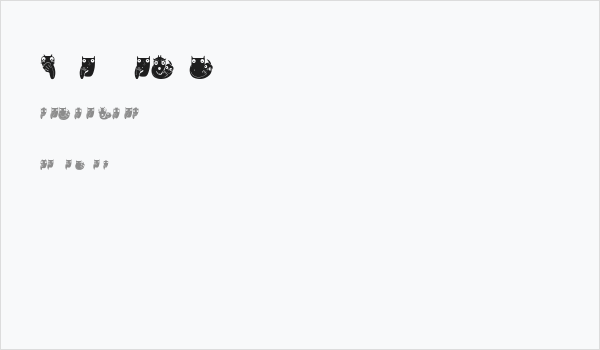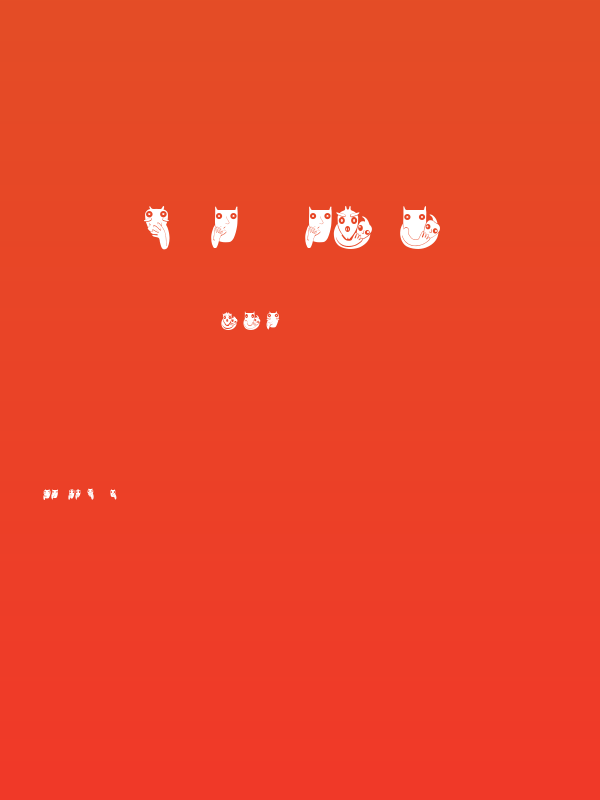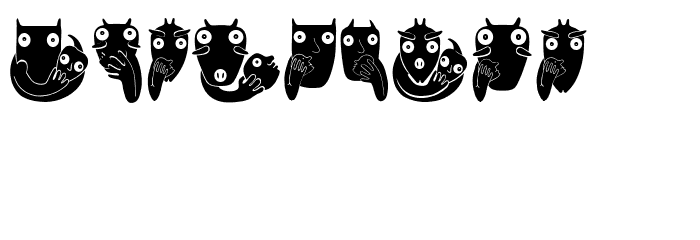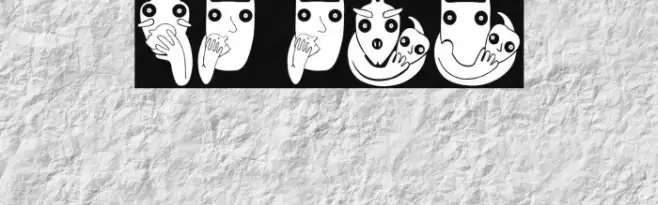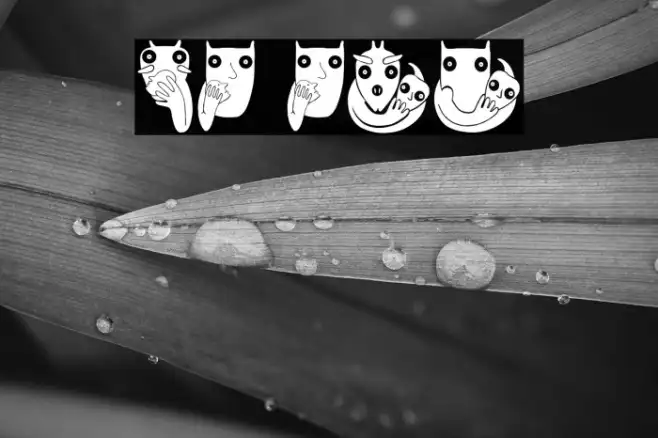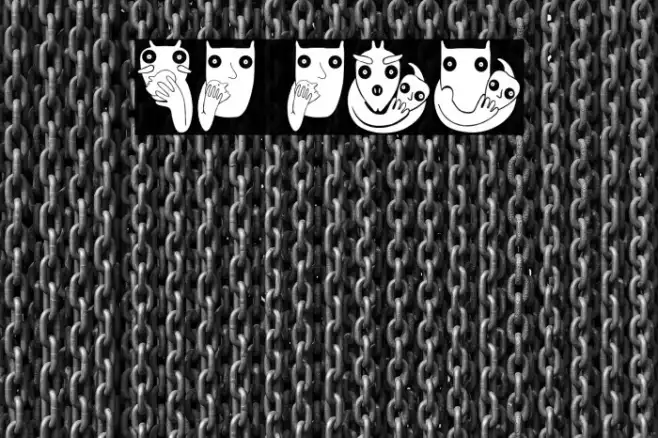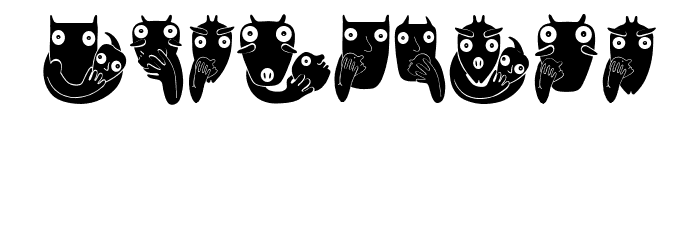
Bonvenon Regular Font
Bonvenon Regular Description
This is a whimsical and playful font featuring cartoonish animal-like characters. Each character is creatively designed with expressive eyes and unique features, giving the font a lively and animated appearance. The characters are bold and filled, with a consistent black color that enhances their visibility and impact. The font is highly decorative, making it suitable for projects that require a fun and engaging visual element. Its unique style can capture attention and add a touch of humor and creativity to any design.